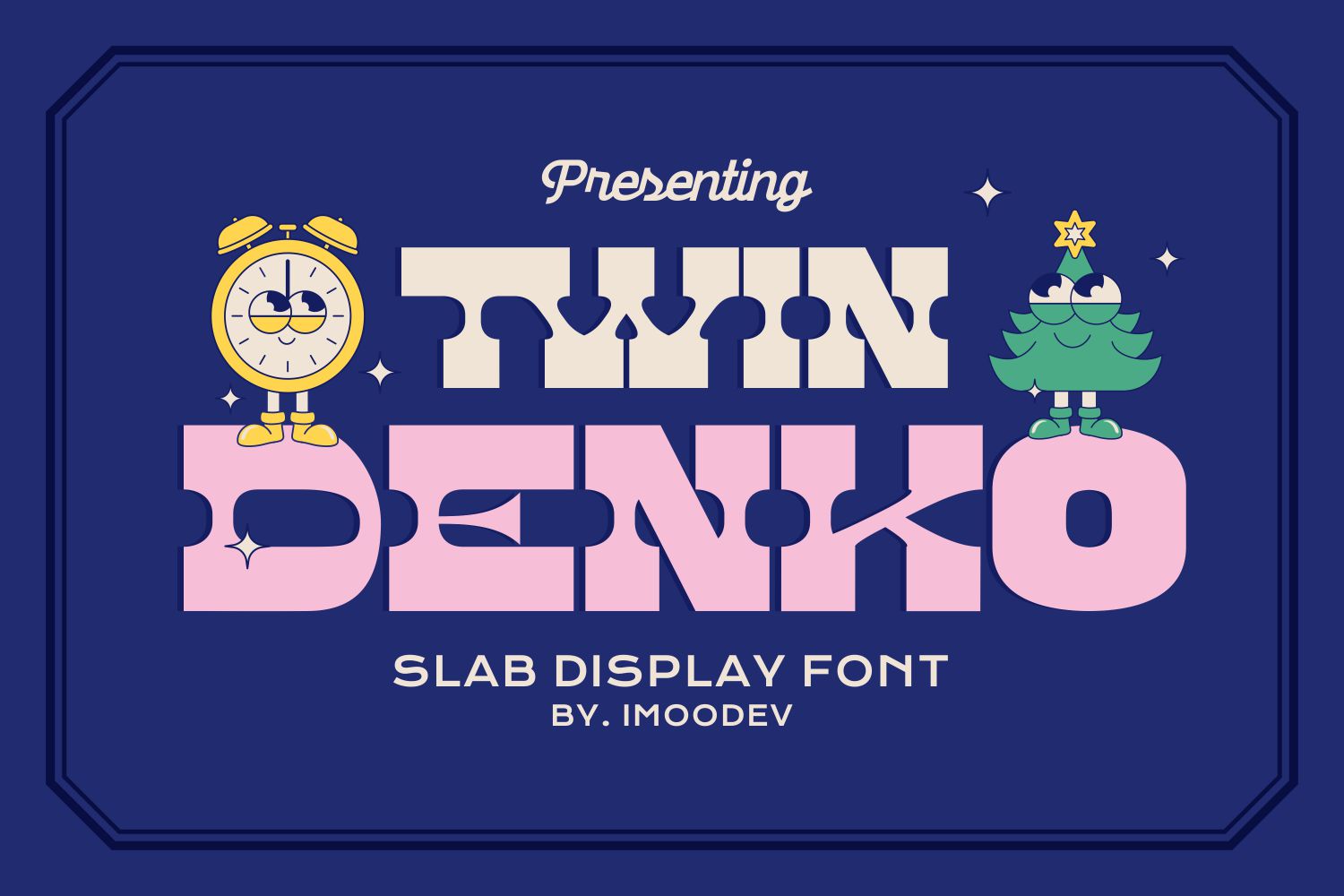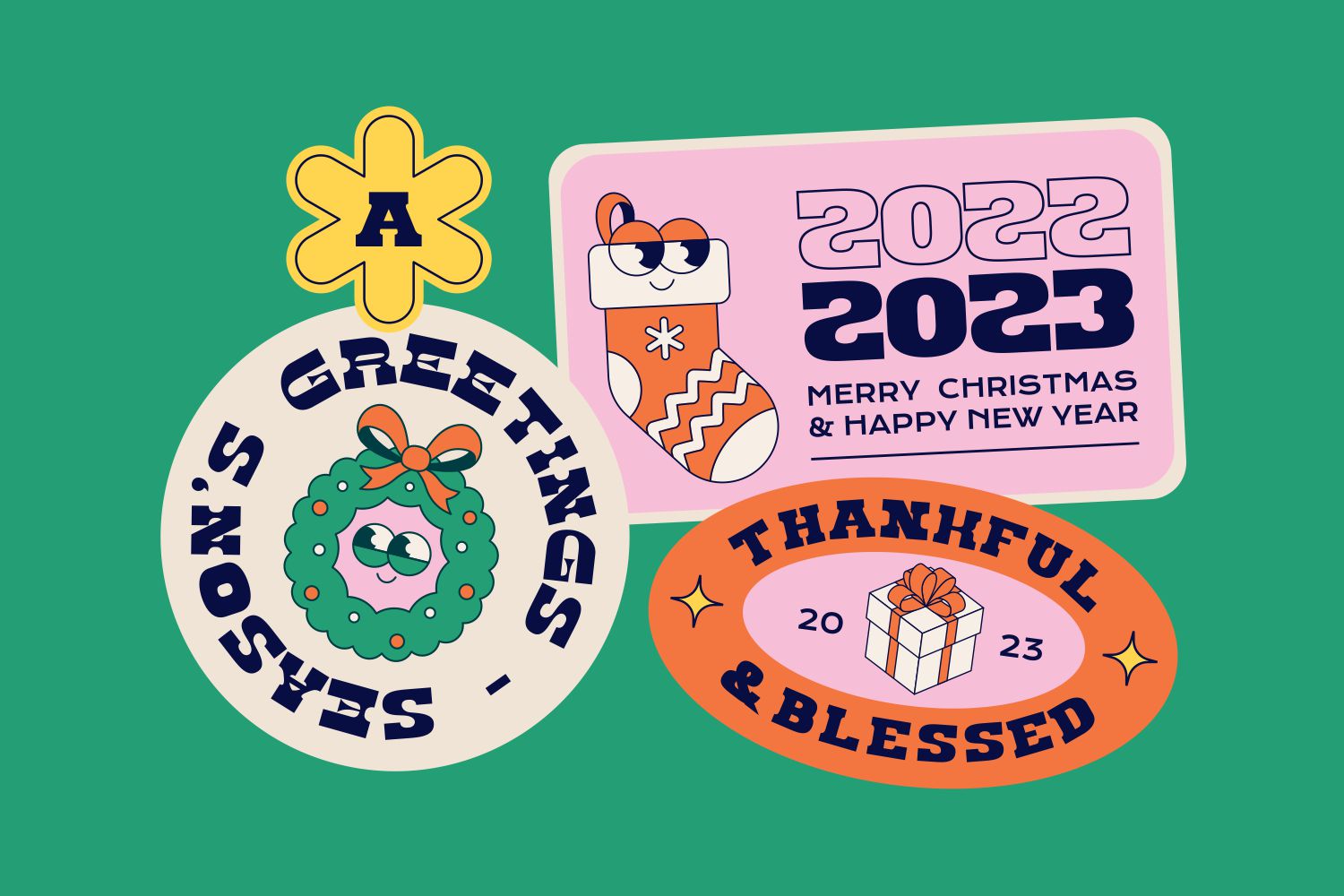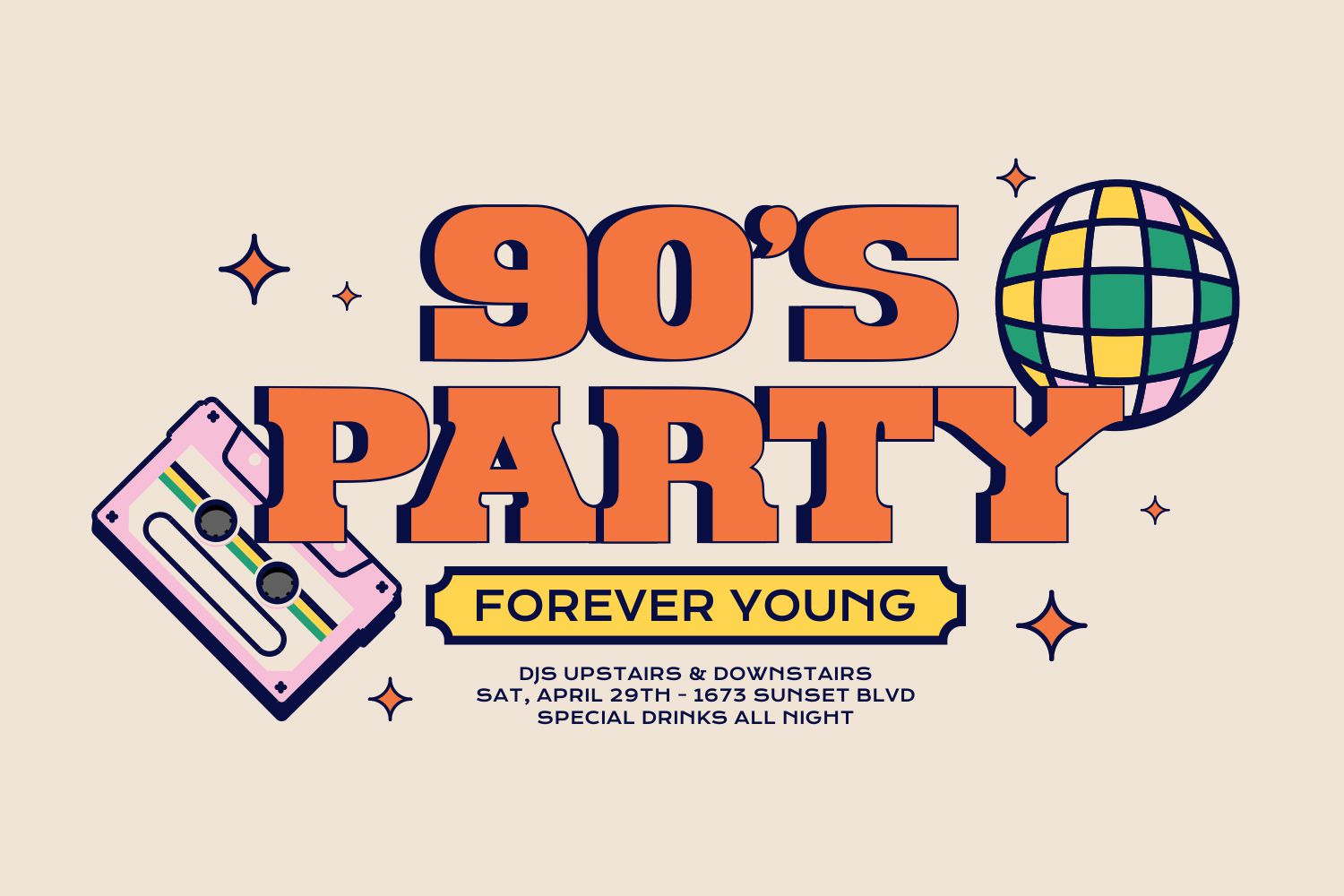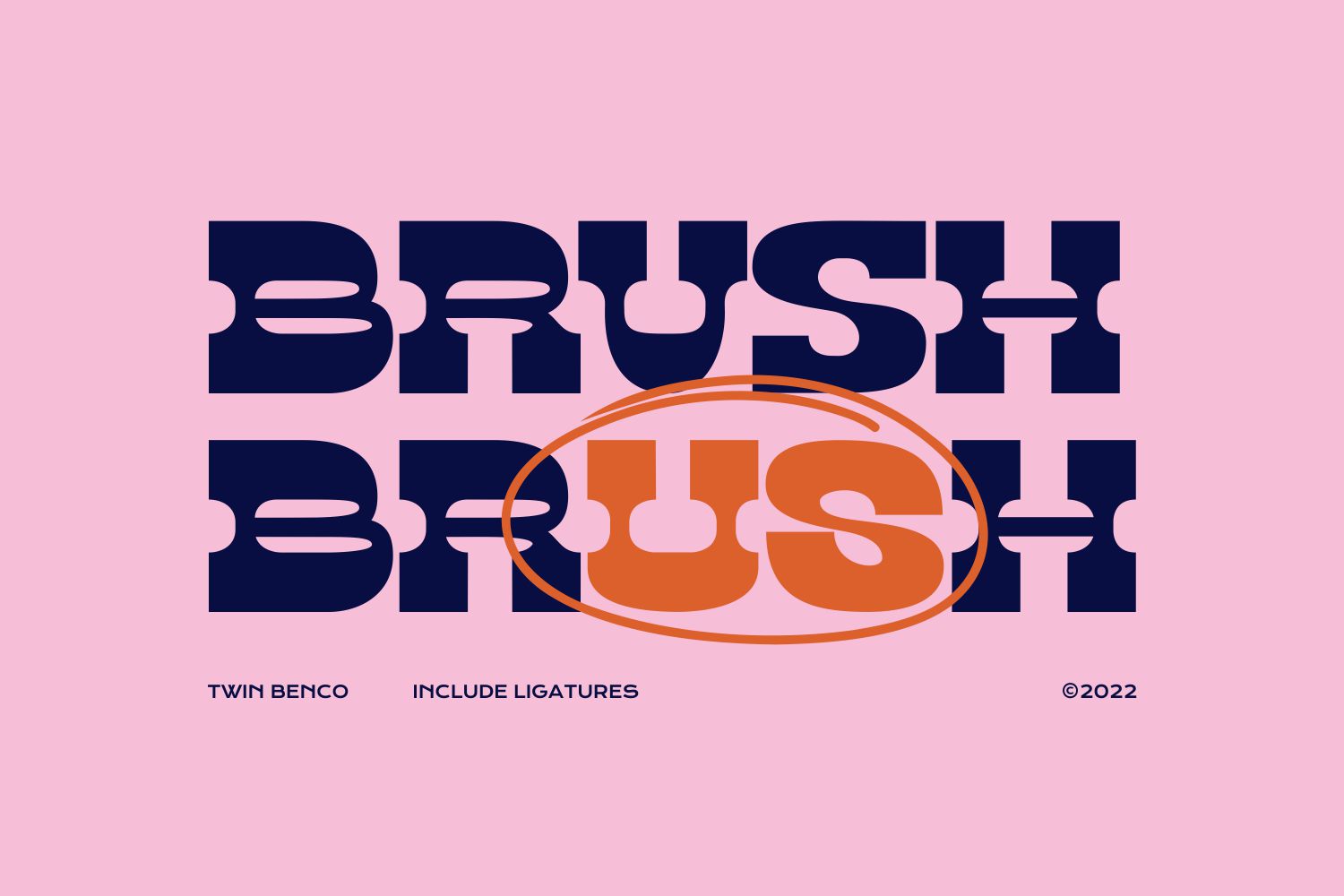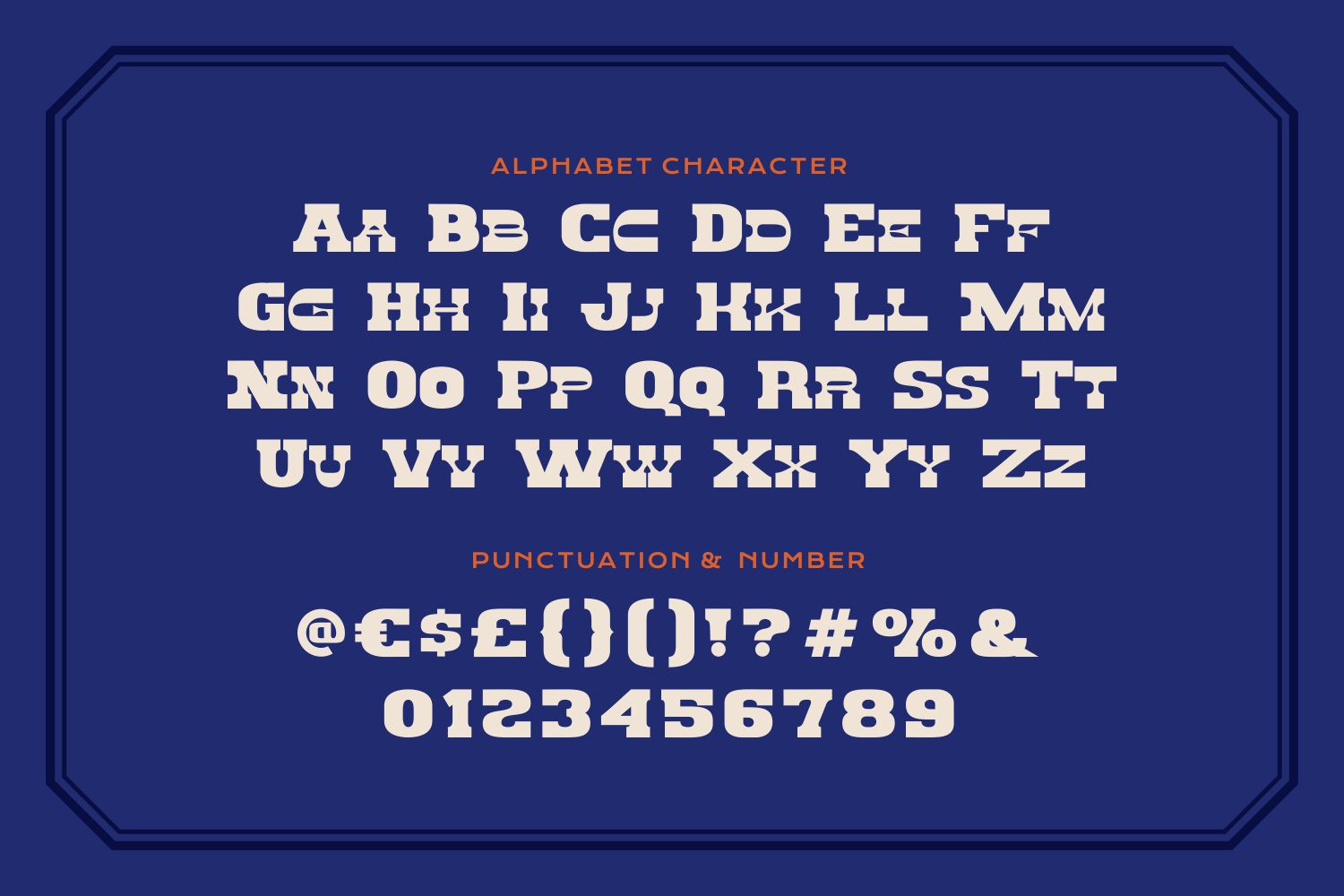
Twin Denko is a bold and playful slab display font that blends retro charm with modern creativity. Its chunky letterforms and unique cutout details give it a distinctive personality, making it perfect for eye-catching titles, fun branding, and vibrant packaging designs. With a touch of nostalgic 90’s energy, this font is ideal for party invitations, poster designs, and any project that calls for a lively, cheerful vibe.
Designed with versatility in mind, Twin Denko includes uppercase, lowercase, numbers, punctuation, and fun ligatures to enhance your layouts. Its quirky shapes and geometric curves work beautifully for both digital and print media, ensuring your message stands out with character and style. Whether for holiday greetings, retro merchandise, or creative advertising, this font brings a burst of personality to every design.